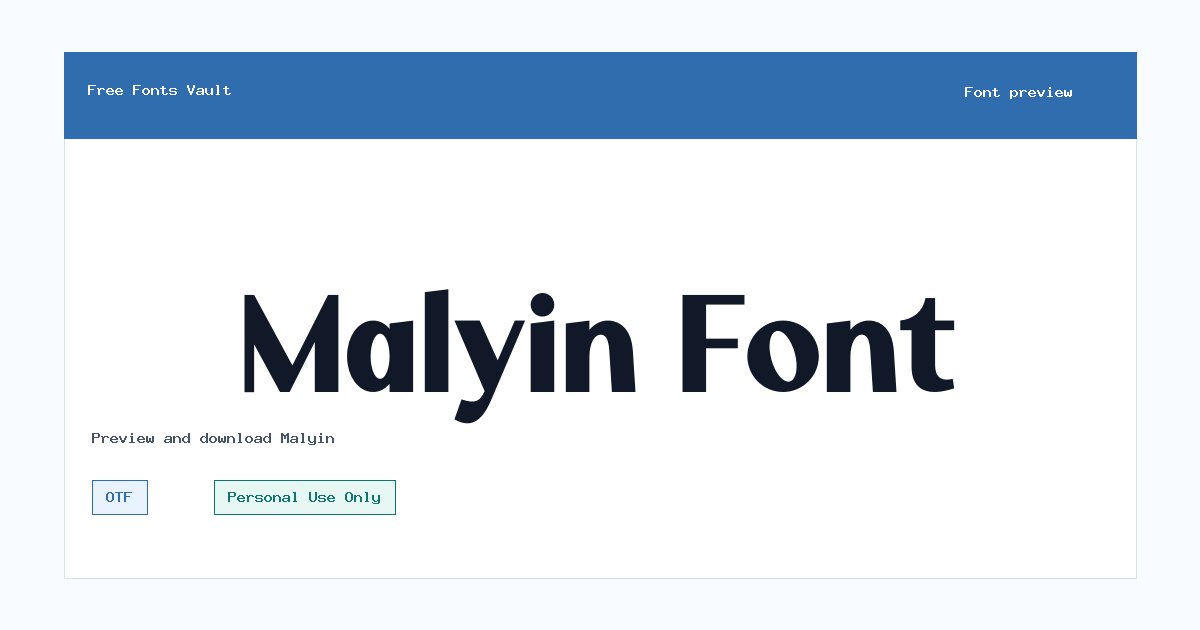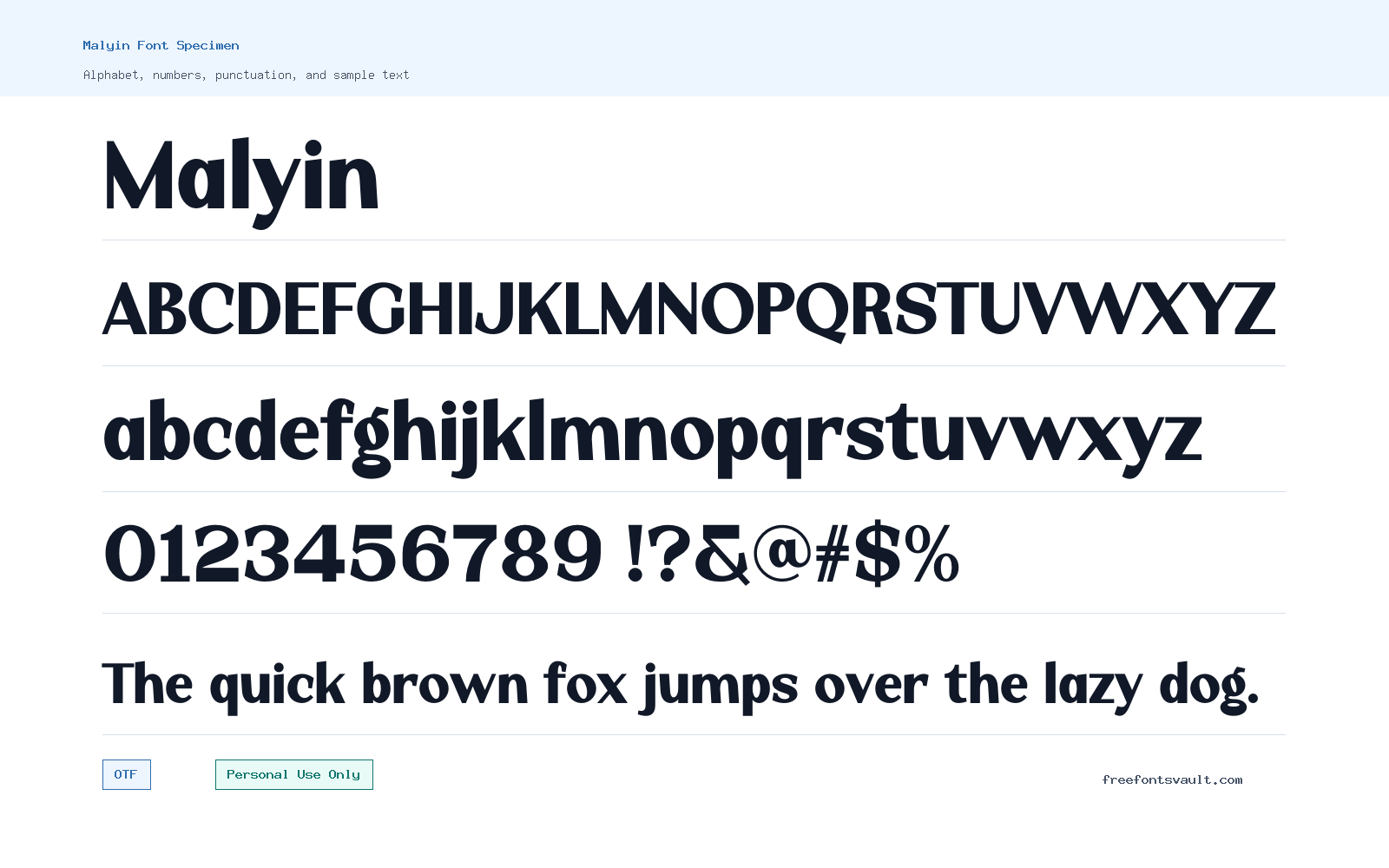
Malyin
Malyin font preview showing the family name
Malyin Font
Malyin font specimen showing alphabet, numbers, and sample text
• Designer Maikohatta
Malyin font.
Malyin is a sans serif font by Maikohatta with a regular OTF style for personal-use projects. It is a practical choice to preview when you need clean lettering for short titles, display text, branding drafts, posters, or visual mockups.
About Malyin
Malyin keeps things simple: one regular sans serif style in OTF format, with normal weight and upright styling. That makes it easy to test quickly in the font preview tool before you download it. Because there is only one listed style, it is best treated as a focused display or headline option rather than a full text family with multiple weights. Try it first with the exact words you plan to use, especially if your design depends on a logo name, product title, social graphic headline, or short phrase.
For design work, Malyin is most useful when you want a straightforward sans serif voice without relying on heavy decoration. Use it for logo concepts, brand boards, poster headings, packaging mockups, website hero text, YouTube thumbnails, quote graphics, and simple editorial layouts. Since the font file listed is a regular style, you may need to create hierarchy through size, spacing, color, and layout rather than switching between bold, light, or italic styles. That can work well for minimal designs, but it also means you should test readability at small sizes before using it for body copy.
If you are building a logo draft, preview Malyin in uppercase, lowercase, and title case. Short names often behave differently depending on letter shapes and spacing, so check the gaps between letters rather than judging the font from a single sample word. For posters and social posts, test it at the final size you expect to use. A clean sans serif can look sharp in a large heading but may need extra tracking or line spacing when used in stacked text. For web mockups, use Malyin for headings or navigation experiments, but keep a standard system font nearby for paragraphs unless you have confirmed that the font stays comfortable in longer reading.
Font pairing with Malyin should stay simple. Pair it with a neutral serif if you want contrast in editorial layouts, or use a familiar system sans serif for supporting text in interface and web concepts. Avoid pairing it with another highly similar sans serif at the same size and weight, because the two fonts may compete without creating a clear hierarchy. If the design feels too plain, add contrast through scale, whitespace, color blocks, or a different text font rather than forcing extra effects onto the letters.
• Normal upright weight suitable for quick title, logo, and mockup previews
• Simple one-style family, best used where size and spacing create the visual hierarchy
• Logo drafts and brand concept boards
• Poster headings and event graphics
• Website hero text and landing page mockups
• Social media titles, quote cards, and thumbnail text
• Short display text where a clean sans serif look is needed
Malyin is credited to Maikohatta. No foundry name or designer website is listed for this font entry.
Who designed Malyin?
Malyin is credited to Maikohatta.
Is Malyin good for logos?
Does Malyin include bold or italic styles?
Only one regular, normal-weight style is listed. If you need a full family with bold, italic, or multiple weights, you may need another font for the supporting typography.